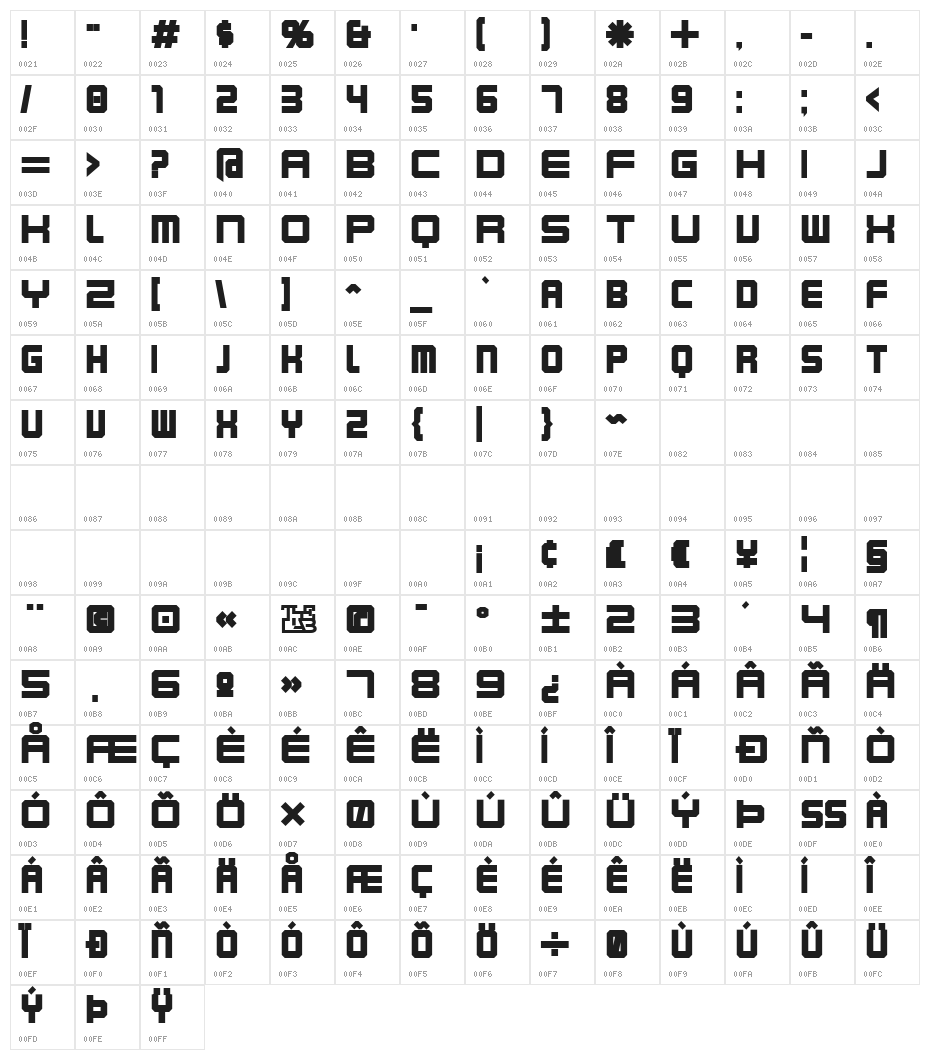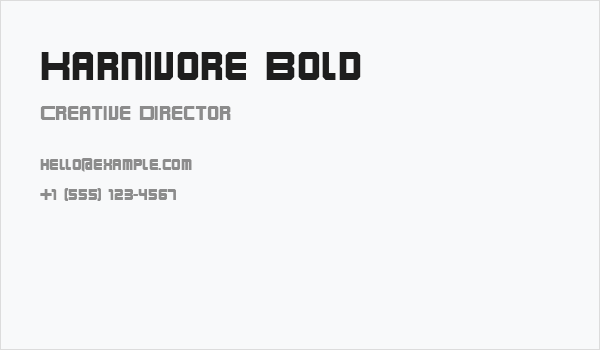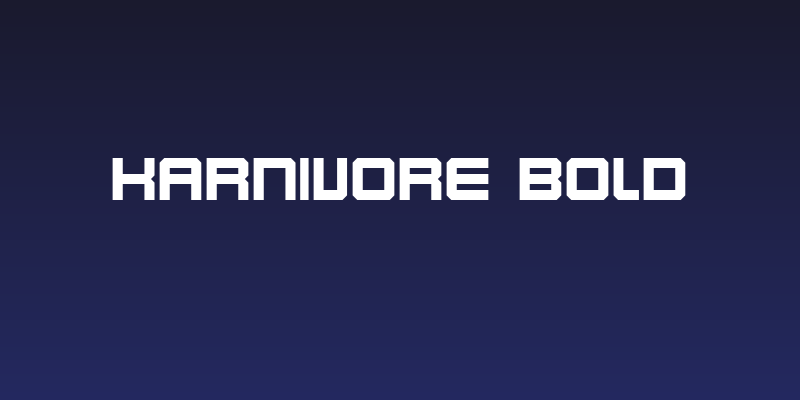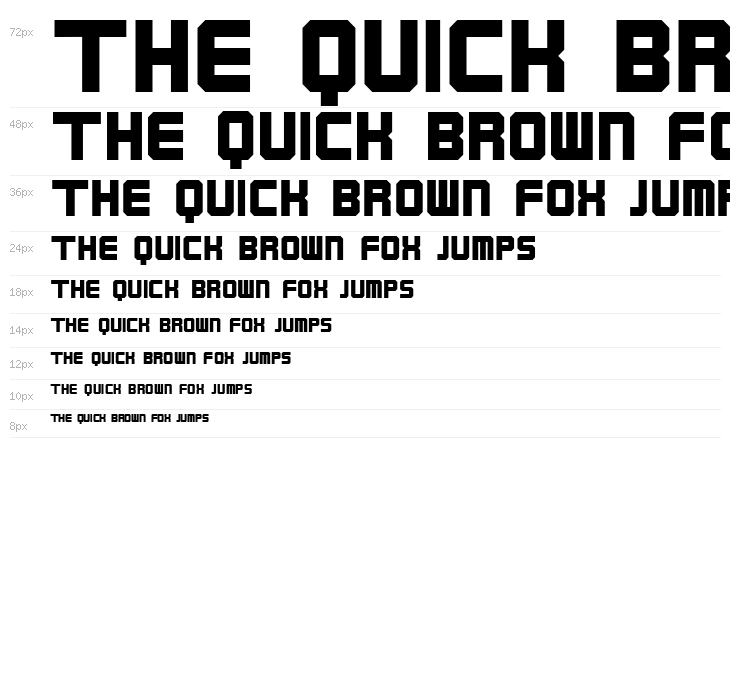
Karnivore Bold Font
Karnivore Bold Description
This bold and striking font features a geometric and angular design, characterized by its thick, blocky letters with sharp edges. The uppercase and lowercase letters maintain a consistent height, creating a uniform appearance. The numbers and special characters follow the same bold and angular style, ensuring a cohesive look across all characters. The font's strong presence makes it ideal for attention-grabbing designs, while its clear and legible form ensures readability even at smaller sizes.
| Proposed Projects | Ideal for posters, logos, video game titles, and branding materials that require a bold and impactful look. |